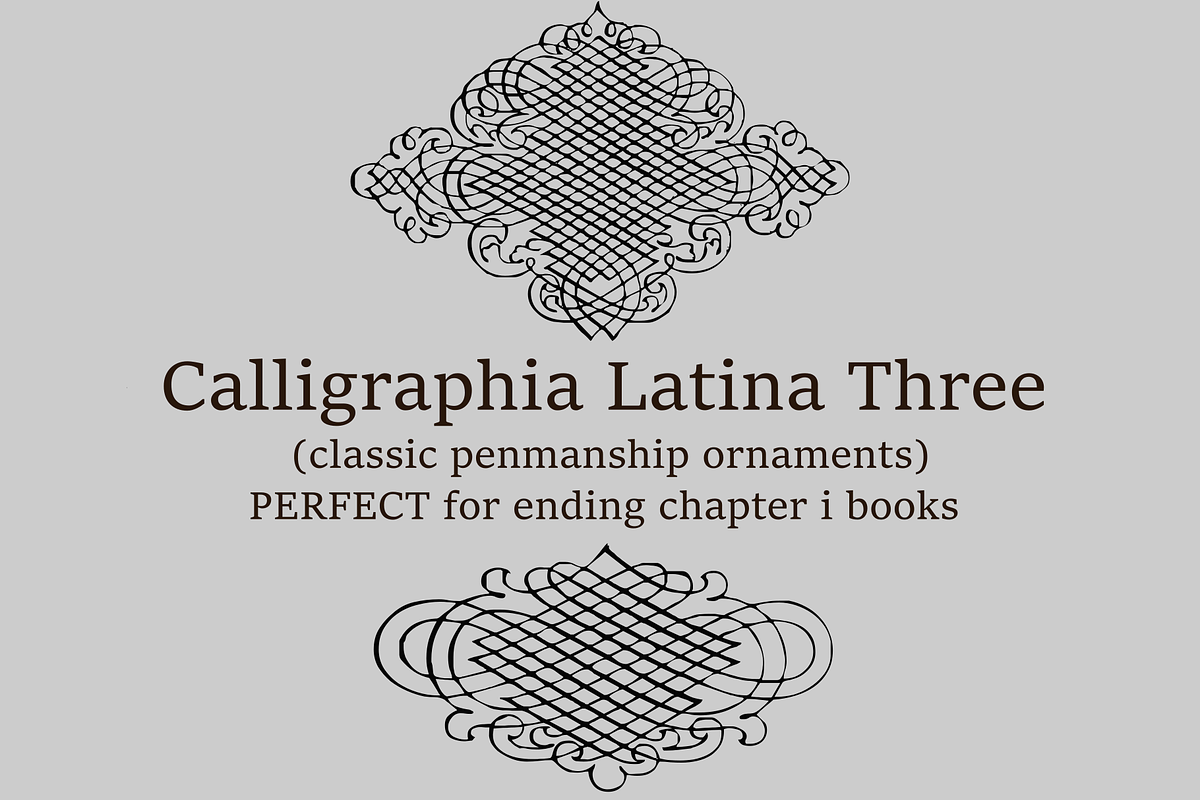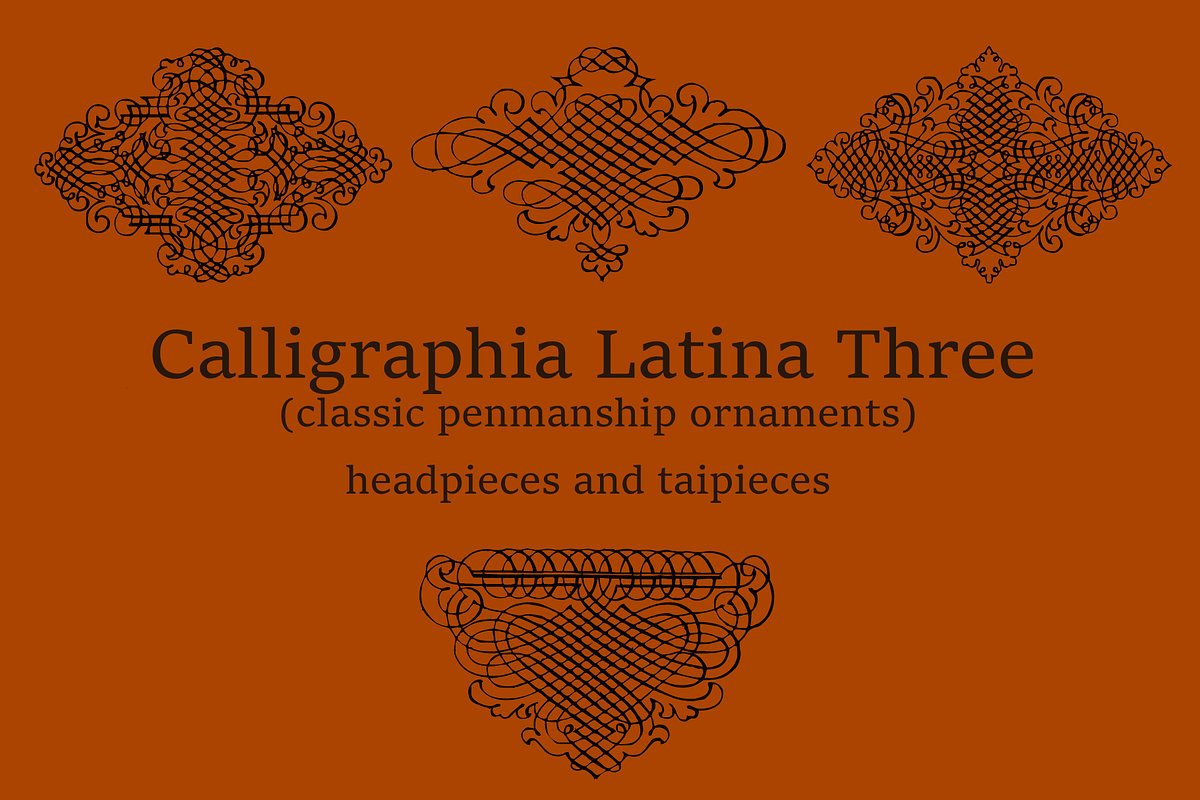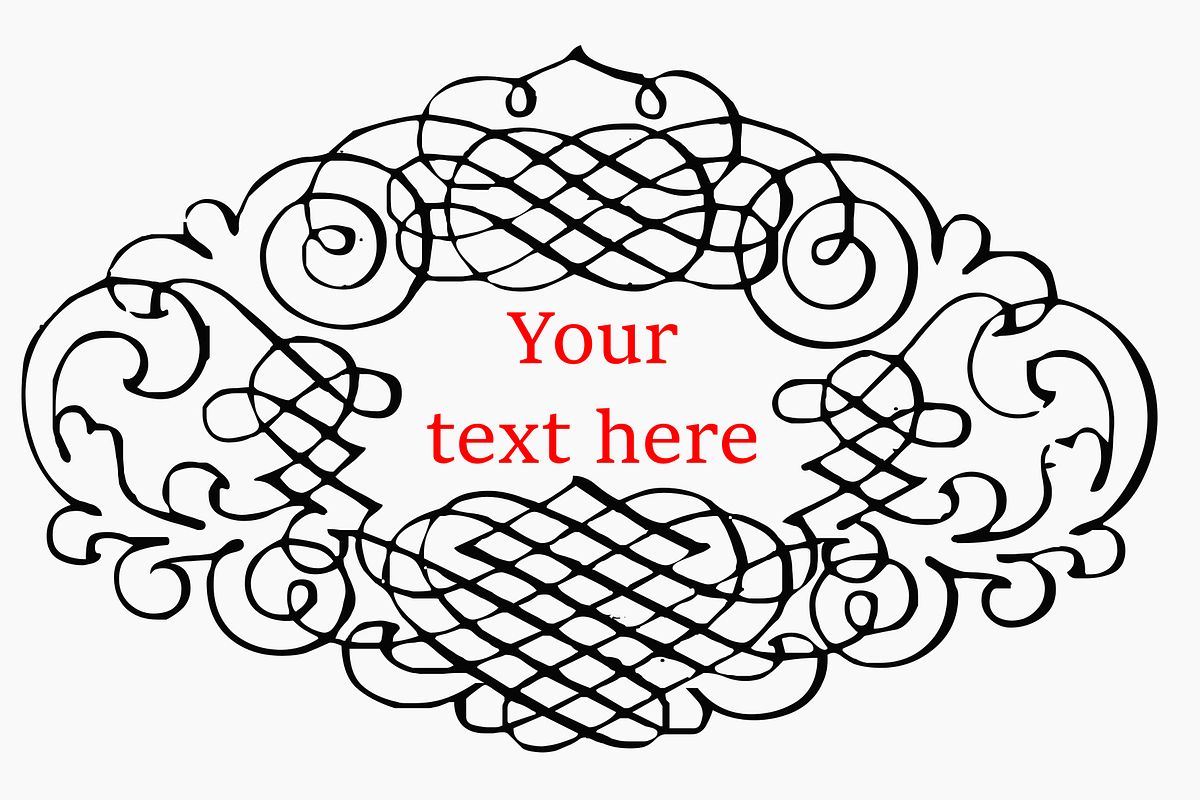
Calligraphia Latina Three
One of the most successful ornament fonts is CalligraphiaLatina. It is part of a trend that’s been quite popular lately: messed-up calligraphy.